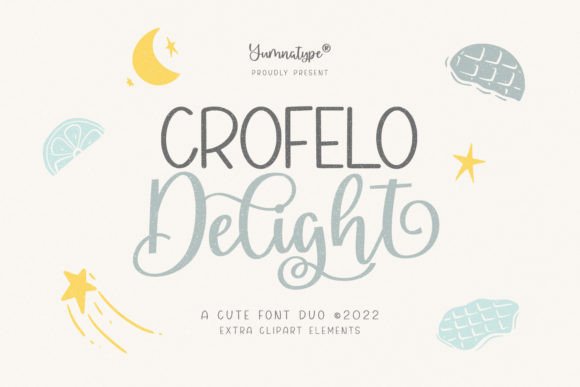
Are you tired of the same old fonts and looking for something new and exciting? Look no further than Crofelo Delight Duo Font - the perfect addition to your font collection. This font family, created by Yumna_Type, is not only versatile but also perfect for tattoos and lettering.
Crofelo Delight is a beautiful combination of a cute script font and a stunning display font. The harmonious duo allows you to mix, match, and call your own, making it perfect for all of your design needs. Whether you are creating a logo, designing a website, or working on a project that requires unique typography, this font family will instantly elevate your designs.
The intricate details and smooth curves of Crofelo Delight will leave a lasting impression on your audience. Whether you are designing for personal use or for clients, this font duo is the perfect choice for making a statement. The combination of the script and display fonts allows for endless possibilities, making it perfect for any project.